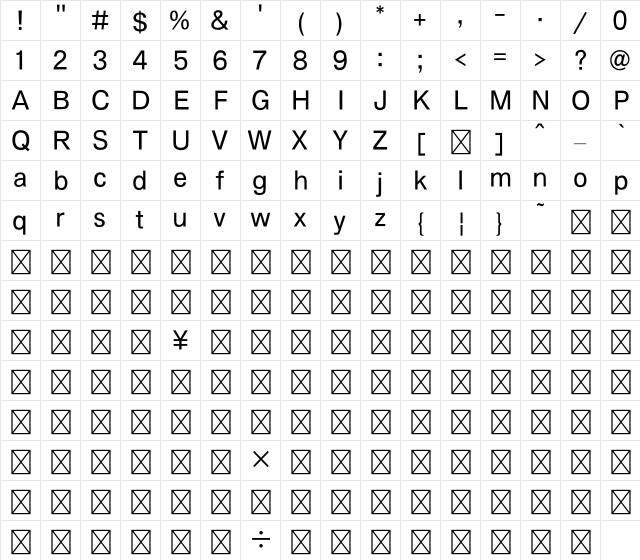
Ro Ryokan Std GB
Foundry: TypeBank Co., Ltd.
Designer: Shintaro Ajioka
Design Context for Ro Ryokan Std
Ro Ryokan Std is a composed and adaptable typeface that performs quietly and consistently across a wide range of design contexts.
Pro Tip: Use Ro Ryokan Std in both headline and body roles to test its range before committing to a single application.